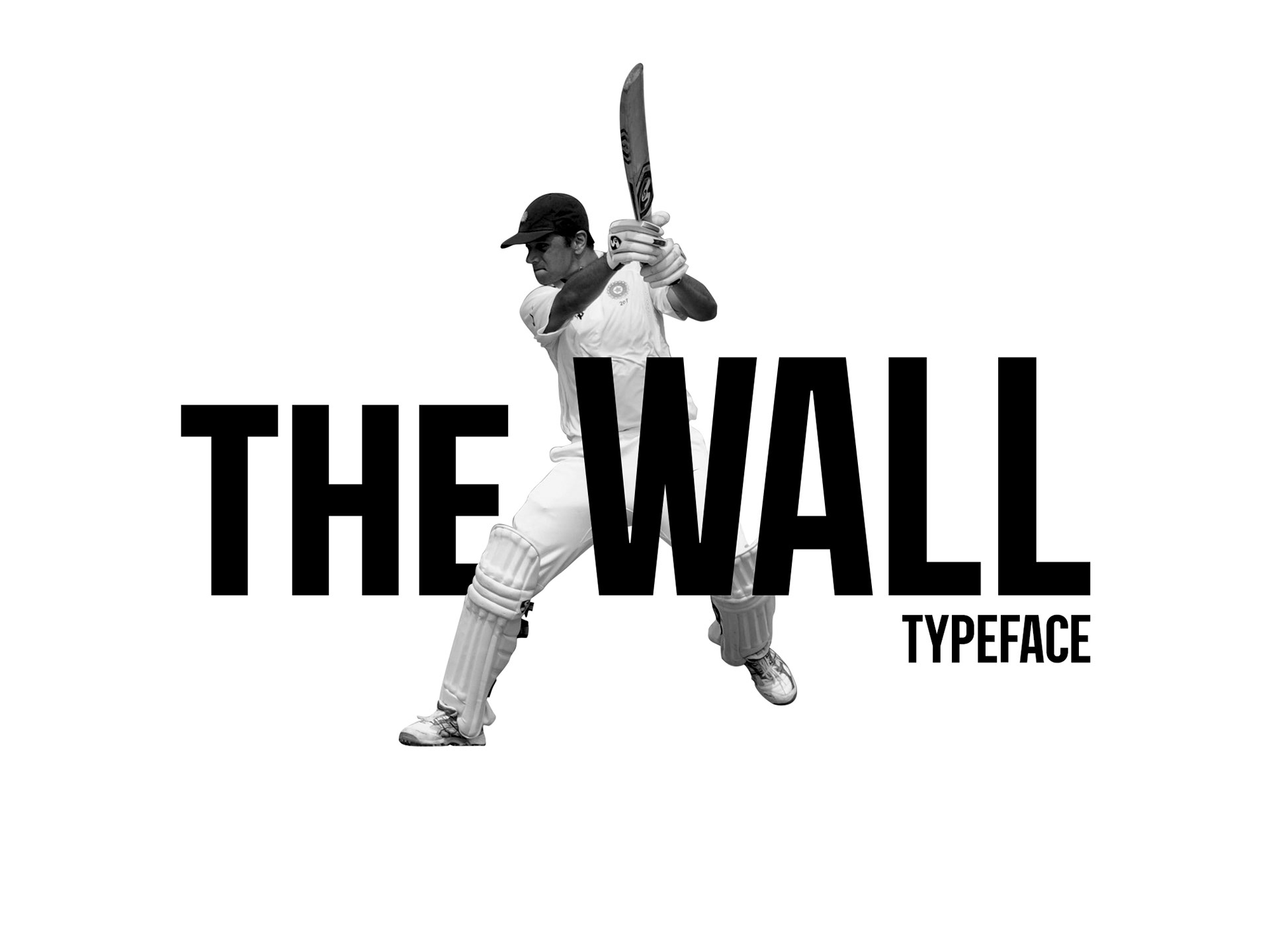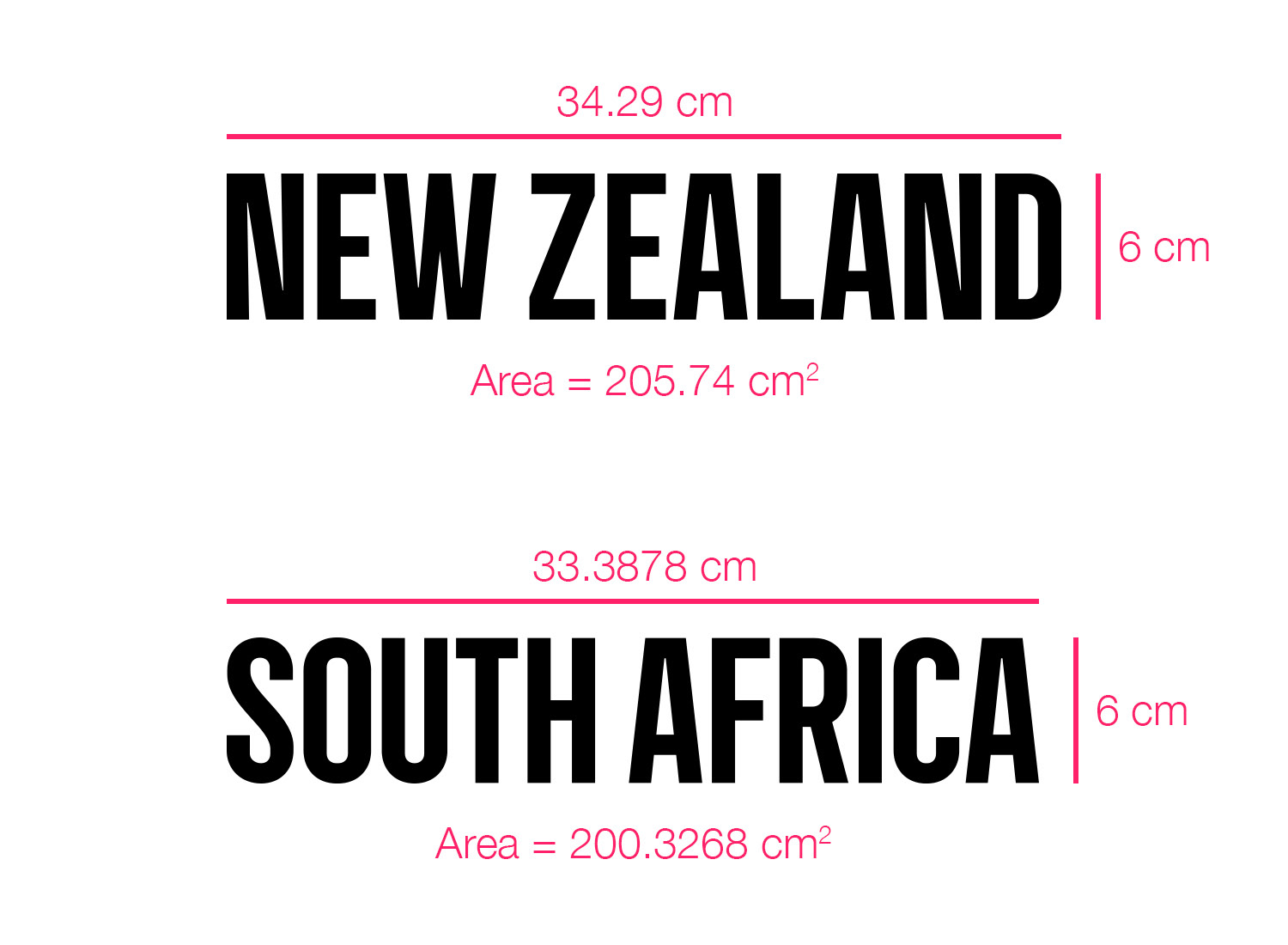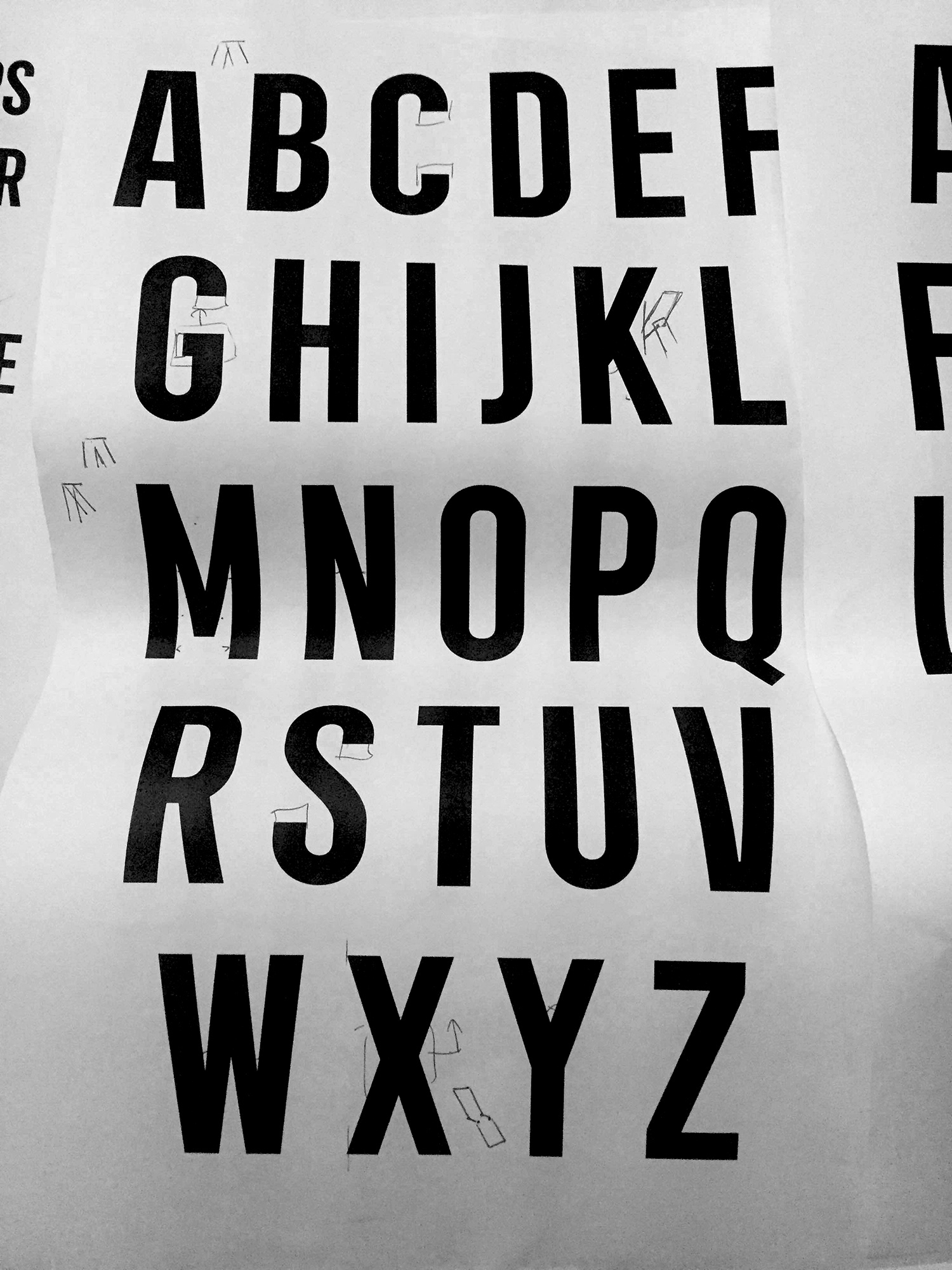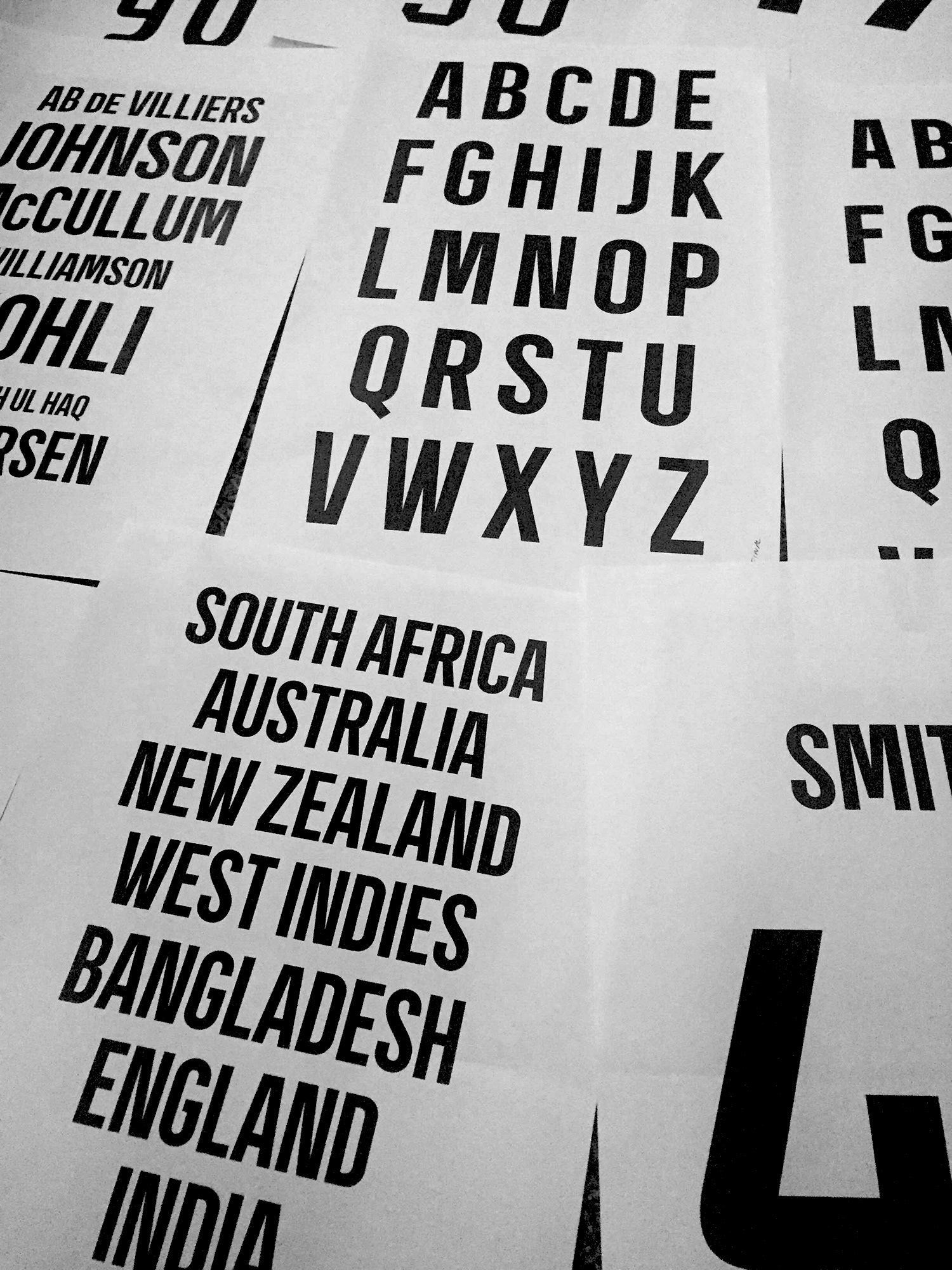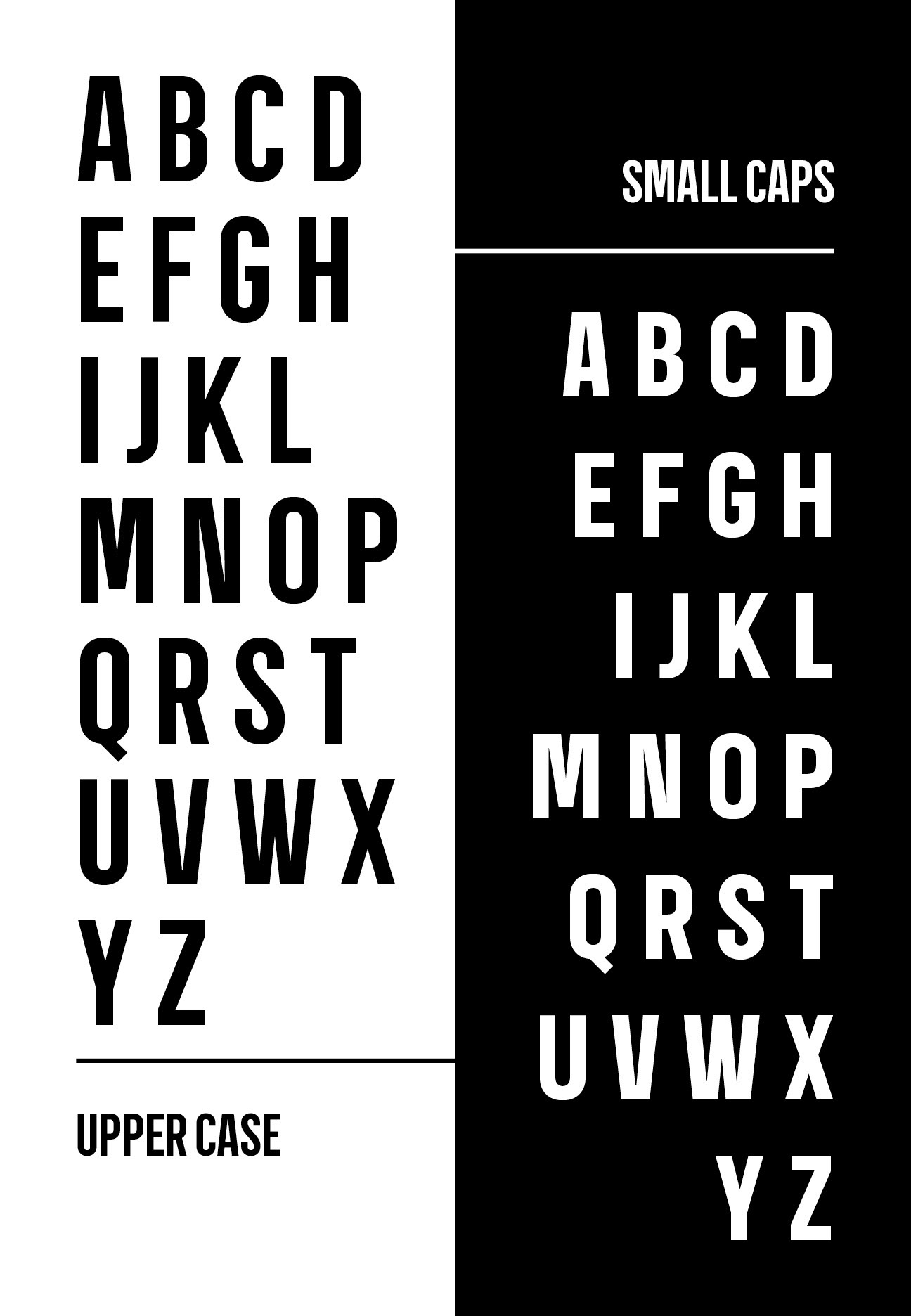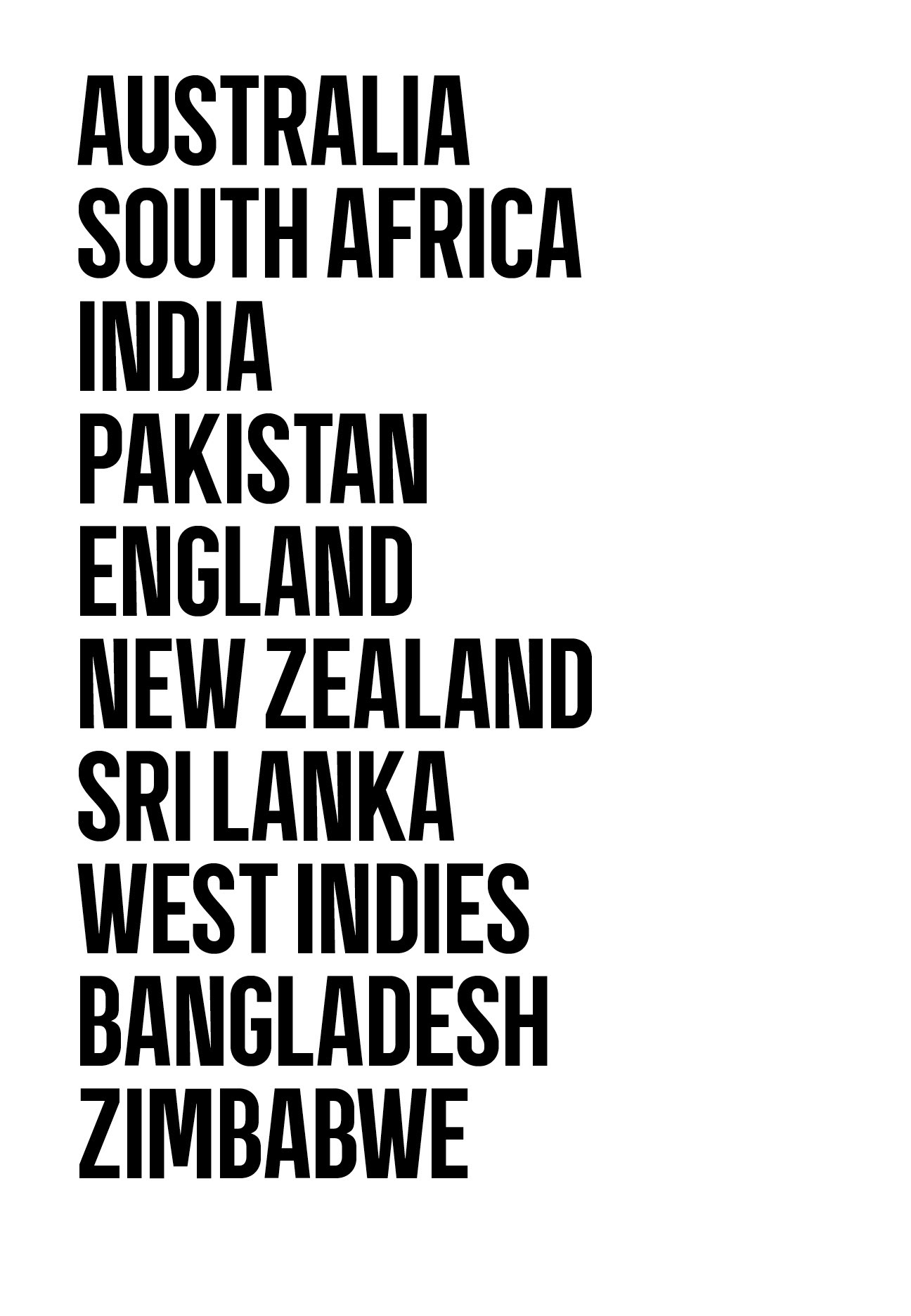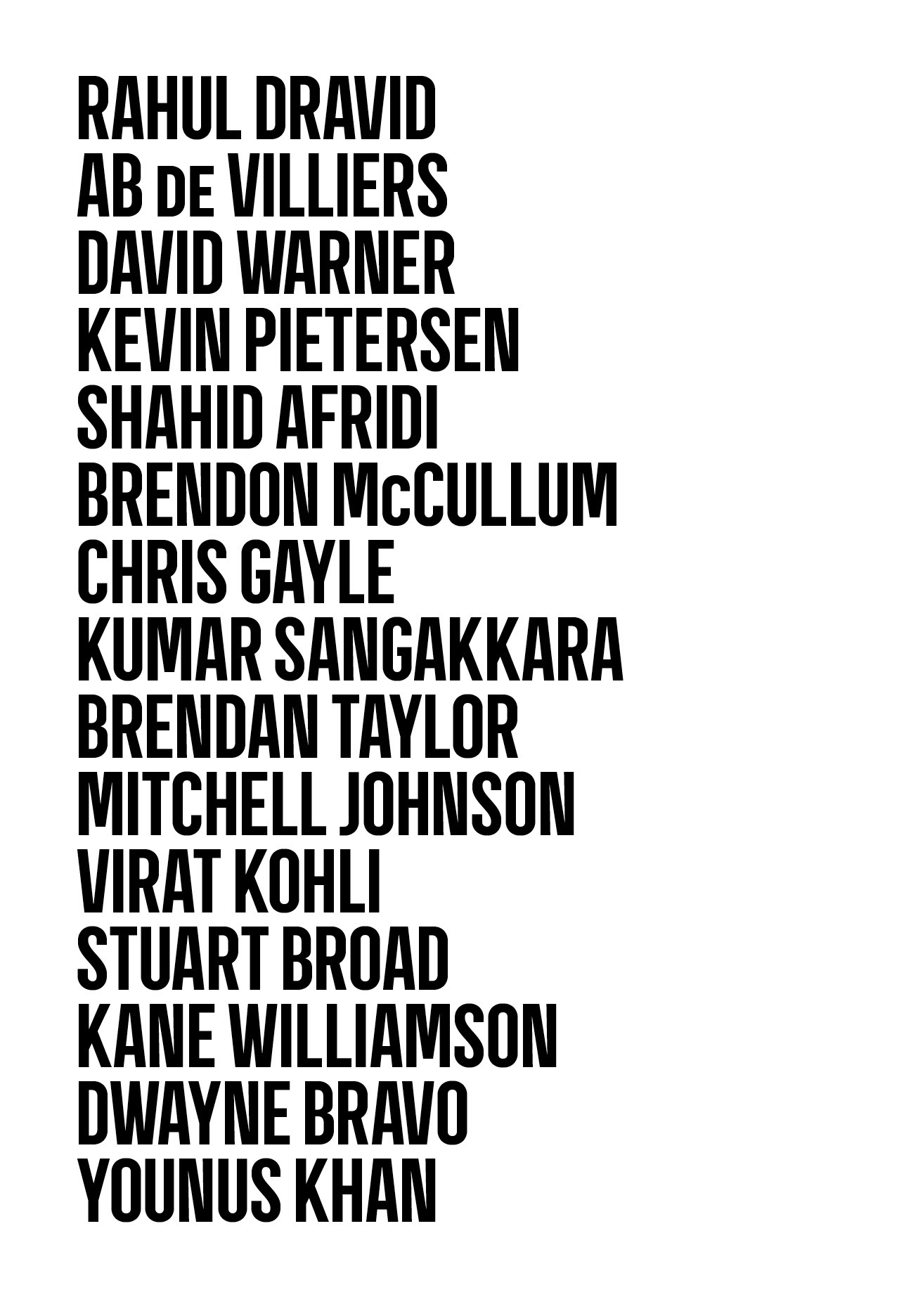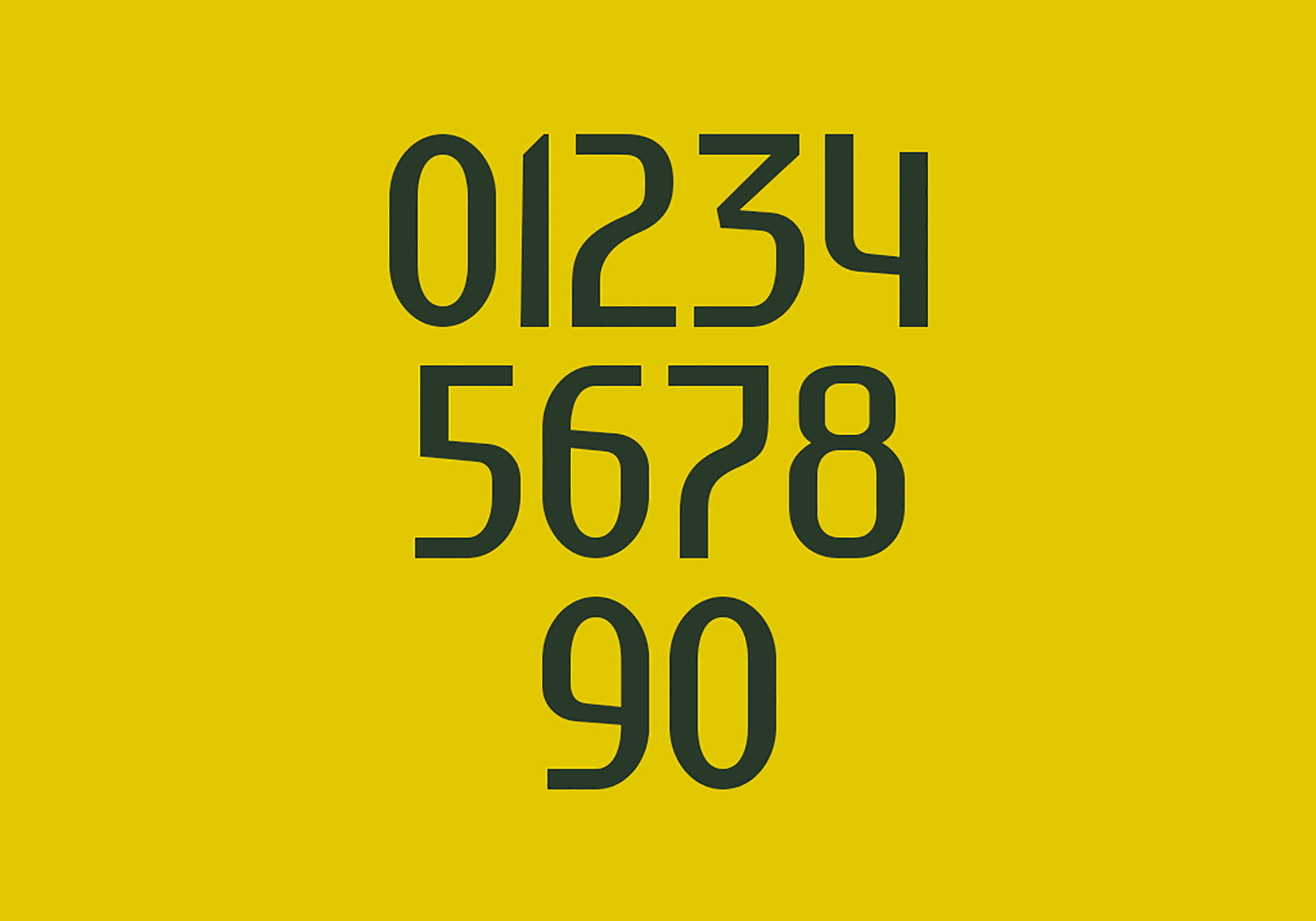
The Wall is a condensed, sans-serif typeface that I designed in the Graduate Type Design class at Maryland Institute College of Art, under the guidance of Tal Leming. The task was to design a typeface, over the course of the semester, that addressed a specific design issue. I chose to design one for the ICC Cricket World Cup 2019 uniforms. For the past several World Cups, the typefaces on the uniforms of all the teams have been pretty generic and some of them are even scaled disproportionately to accommodate all the letters on the uniforms in accordance with the design limitations imposed by the International Cricket Council. Therefore, I wanted to design a typeface that not only addresses the issue but is also varied enough that it imparts a sense of individuality to the different teams.
The idea was to design the alphabets in a way that they retained the classic feel of the typeface used on the 1992 Cricket World Cup uniforms (as shown in the picture above) while modernize the numbers. The text on the front would then act as a unifying element across all uniforms whereas the numbers on the back would be the differentiating element.
I had to keep in mind the following design constraints (encircled in the image above) imposed by the International Cricket Council:
a) The maximum area of the bounding box containing the name of the team should not exceed 206.45 sq. cm
b) The minimum height of the letters on the back of the shirt should be no less than 6 cm
I found out that the longest name in terms of width was New Zealand. The second longest was South Africa. Keeping the height of the glyphs fixed to 6cm, I had to limit the width of "New Zealand" to 34.41cm. I also had to ensure that "South Africa" didn't exceed that limit as it has 11 letters while New Zealand has 10. This was the starting point. Once I was able to achieve this, I designed the other glyphs using these two strings as reference points.
Currently, The Wall consists of basic all caps and small caps glyphs and five sets of numbers. It is named after the legendary Indian cricketer, Rahul Dravid. I would love to design more styles for the numbers in the future. I was only able to do a few sets because of the timed nature of the task.